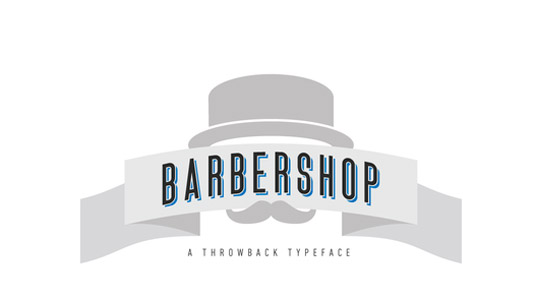
Font of the day: Barbershop
Every day we showcase the best fonts on the web. Today it's Barbershop by David Bortnowski, which is totally free to download.
Barbershop by David Bortnowski
Today's font of choice is vintage-style design Barbershop by designer David Bortnowski. He comments on Dribbble: "Barbershop is a typeface I created based off of Din Condensed, but without the round corners and a bit taller. The file is not outlined, so you can move the shadow wherever you need to, and adjust the stroke size."